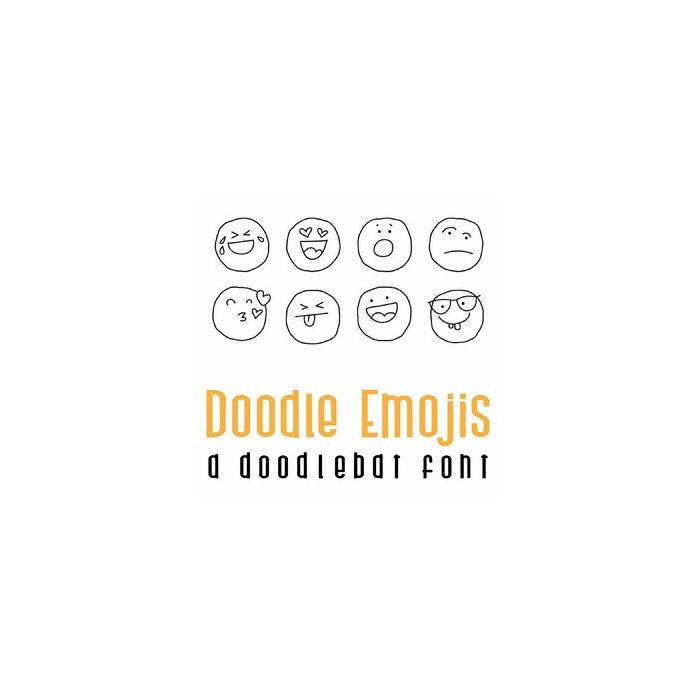
This fun doodlebat font features 26 adorable doodle style emojis. Perfect for cards, gifts, decor, crafts, scrap book pages, planner stickers and more!